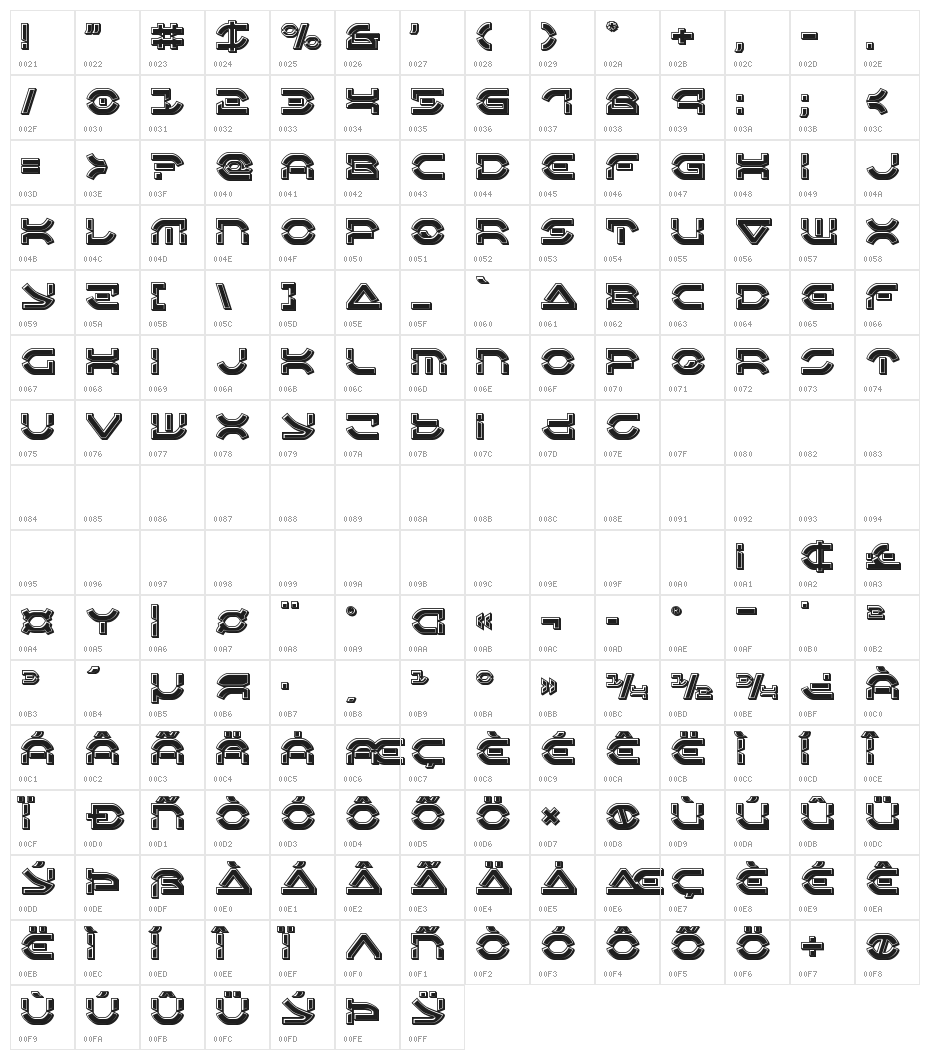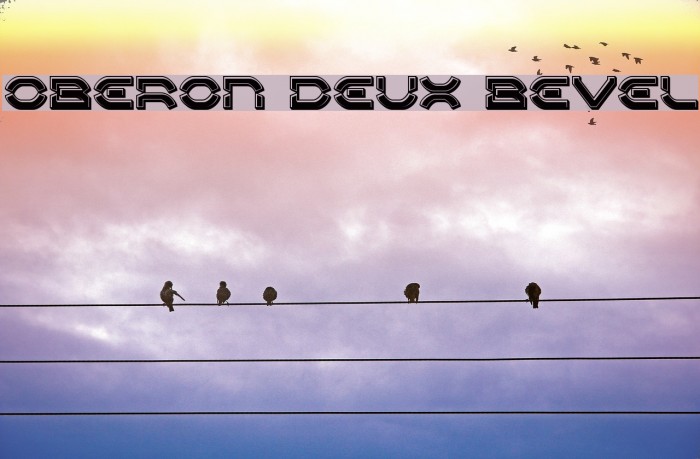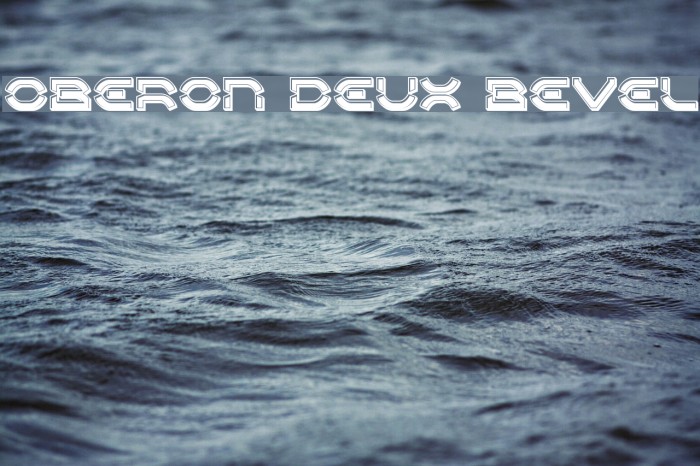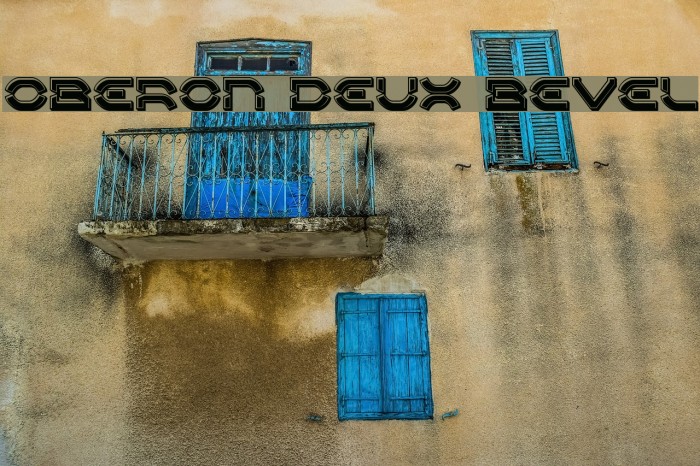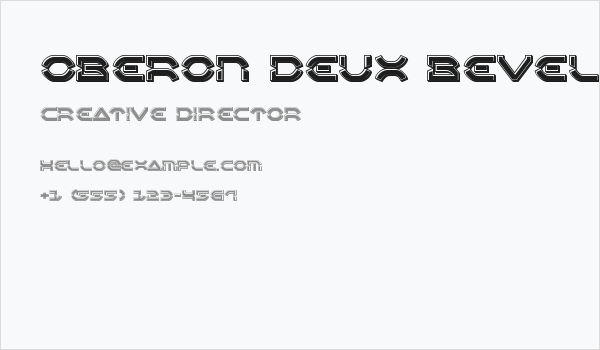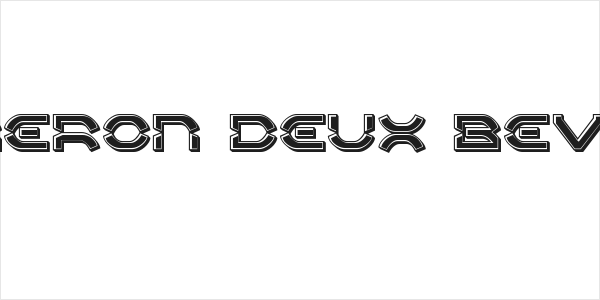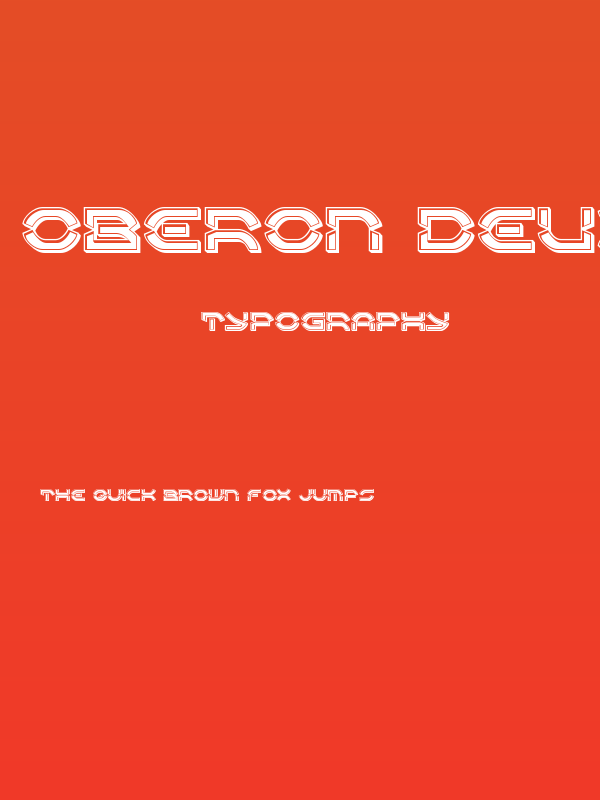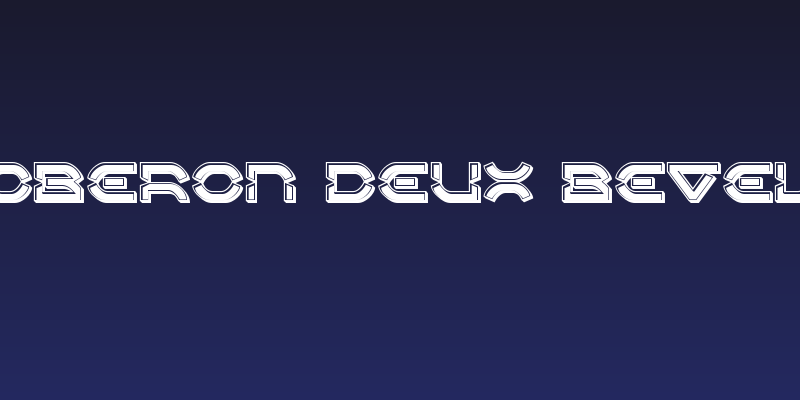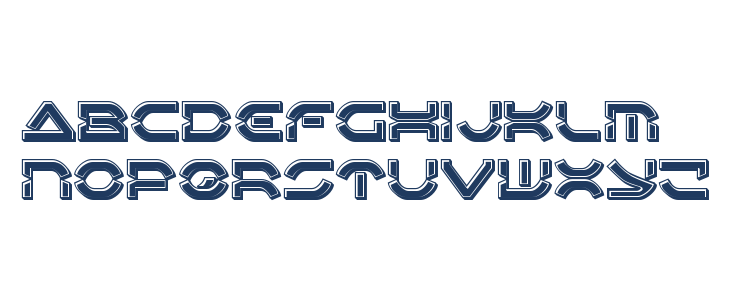
Oberon Deux Bevel Font
Oberon Deux Bevel Description
This font features a bold, futuristic design with a distinct bevel effect, giving it a three-dimensional appearance. The characters are constructed with thick lines and sharp angles, creating a sense of depth and modernity. The uppercase and lowercase letters maintain a consistent style, with geometric shapes and a strong visual impact. Numbers and special characters follow the same design principles, ensuring uniformity across all elements. The font's unique style makes it stand out, ideal for projects that require a bold and eye-catching typeface.
| Proposed Projects | Ideal for sci-fi themed designs, video game titles, posters, and branding that requires a modern and striking appearance. |